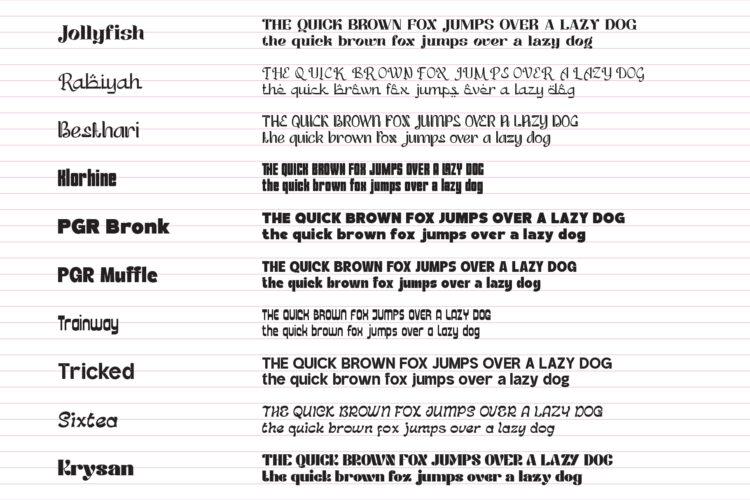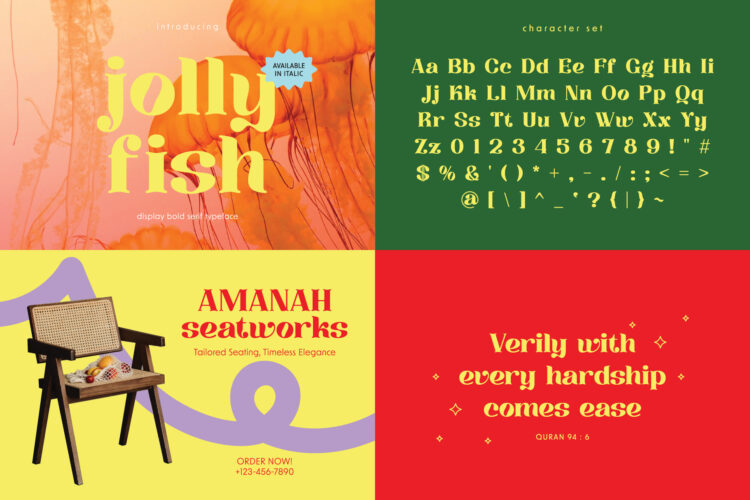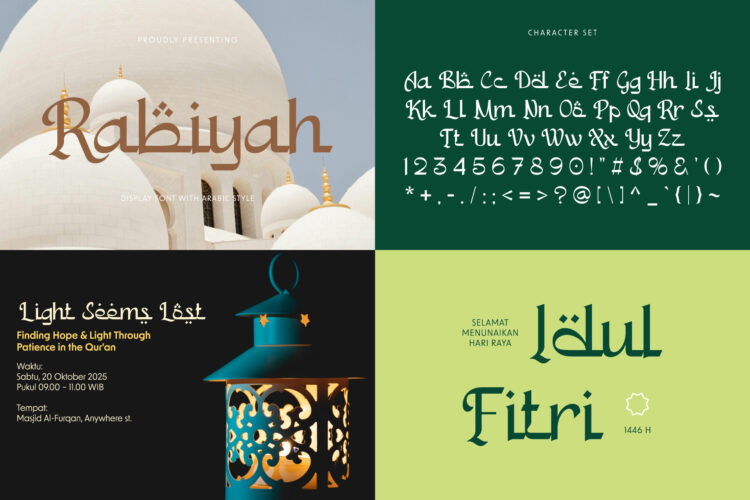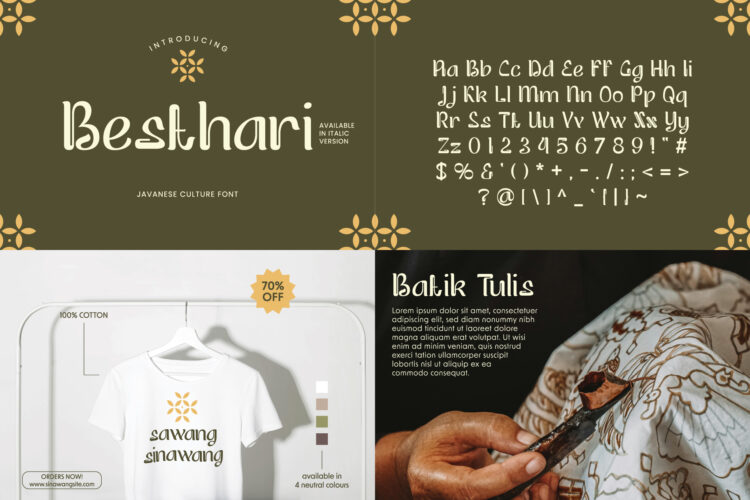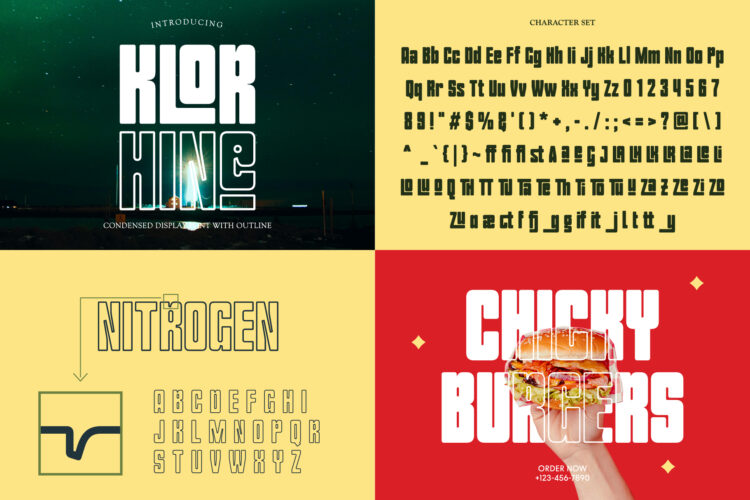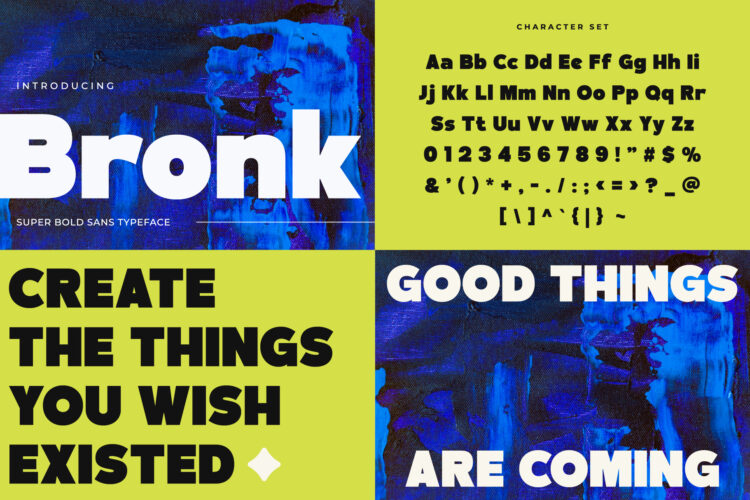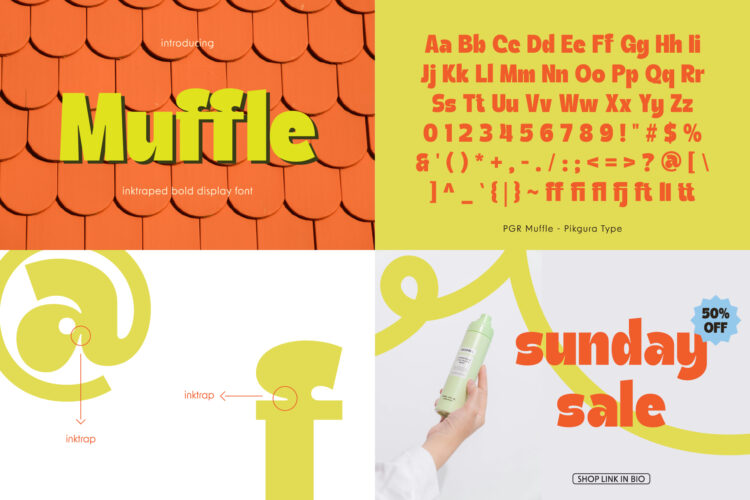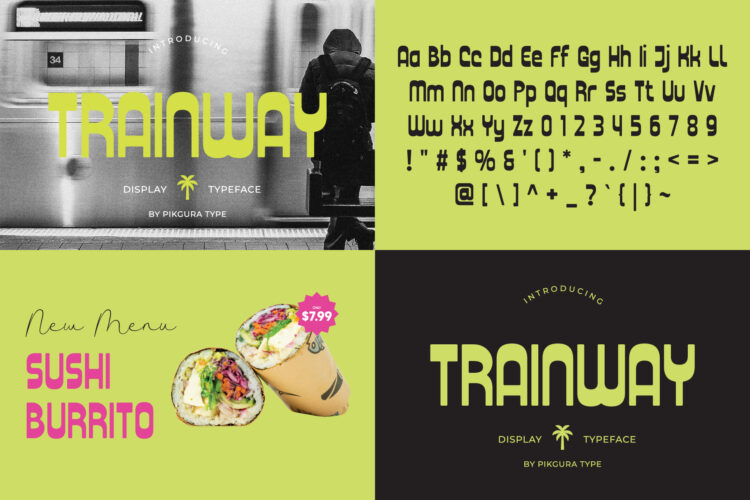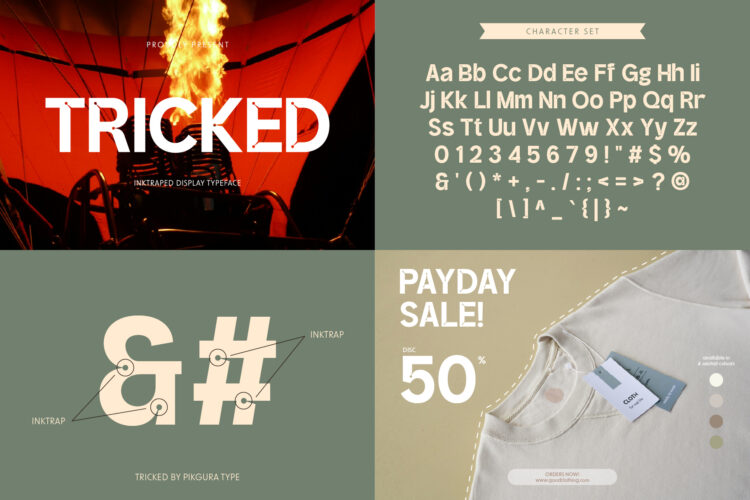
Sixtea
PGR Bronk
PGR Muffle
Rabiyah
Trainway
Tricked
This Display Font Bundle includes 10 unique display fonts. Each font has its own distinct shape, style, and character. The variety makes it easy to create designs that feel fresh and original.
All fonts in this bundle are made to create bold and eye-catching visuals. They work well for branding, posters, logos, packaging, headlines, and social media graphics. Every font helps your design stand out and attract attention.
Several fonts also come with italic versions. This gives you more creative flexibility in your projects. When you purchase this bundle, you receive more than 10 fonts in total. It’s a versatile and valuable choice for designers who want impact and variety in one package.
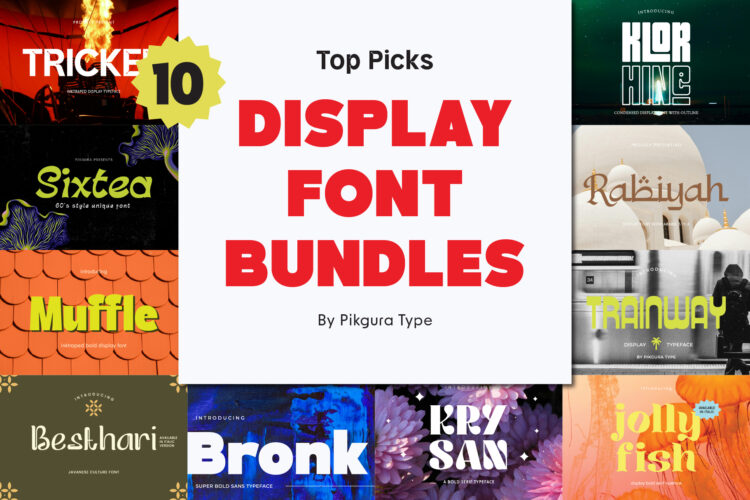
10 Display Font Bundles